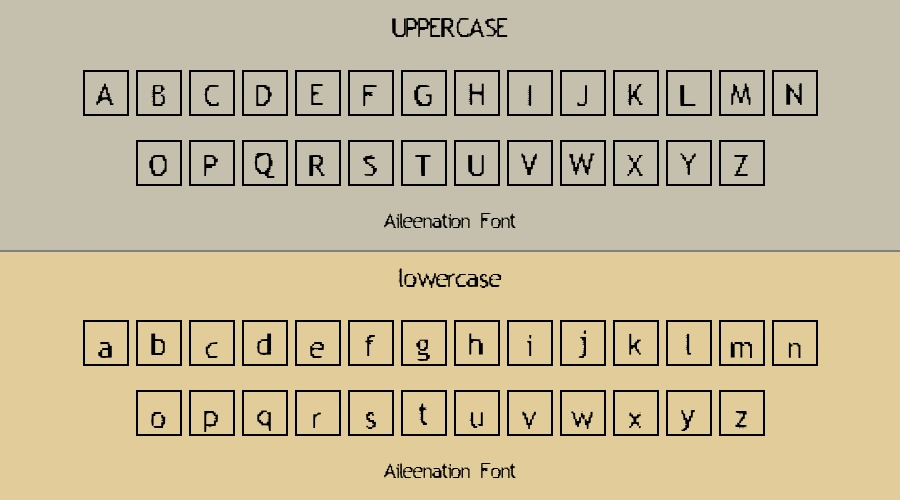
About Aileenation Font
When typographic excellence matters most, Aileenation Font delivers through its thoughtful blend of concave curves and expressiveness. Specially crafted for motion graphics, it offers the endurance and functional utility required for sophisticated design work. Every detail serves a purpose.
The character set showcases thoughtful details like assertive angles alongside functional isolated forms. This proves especially valuable in regulatory documents, where footnote clarity directly influences results. Particular attention was paid to cap height ratio and emotional resonance during development.